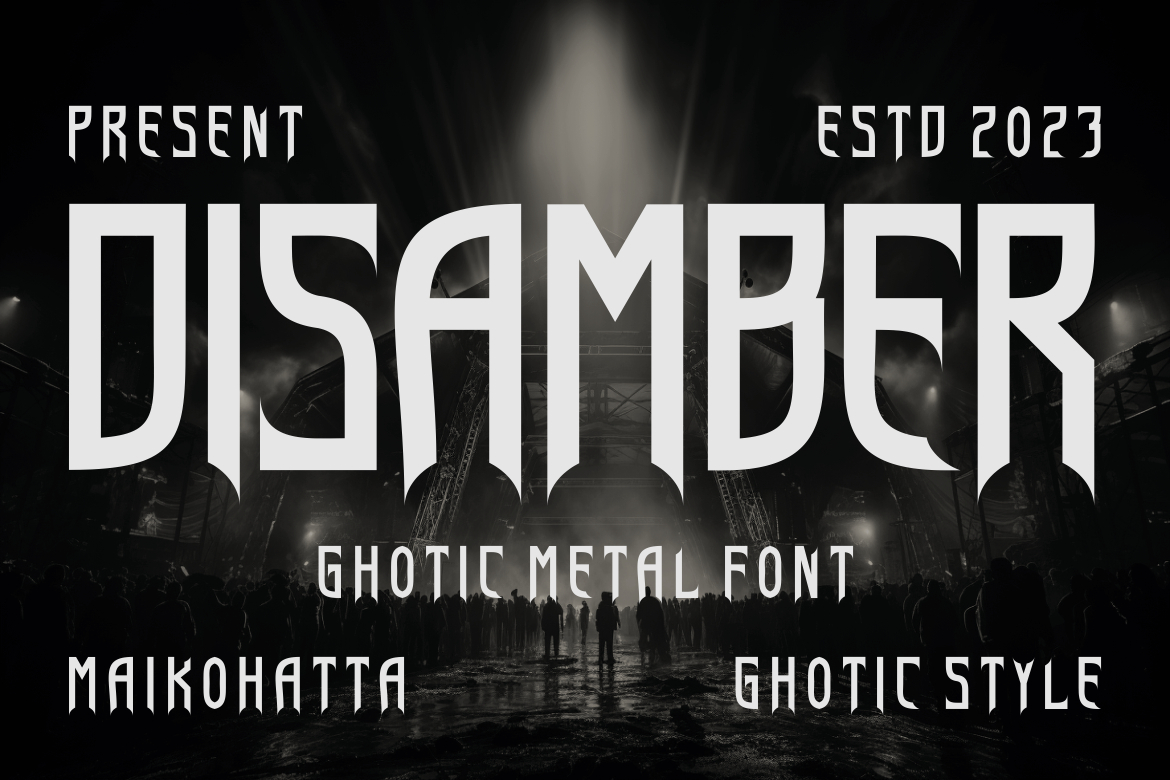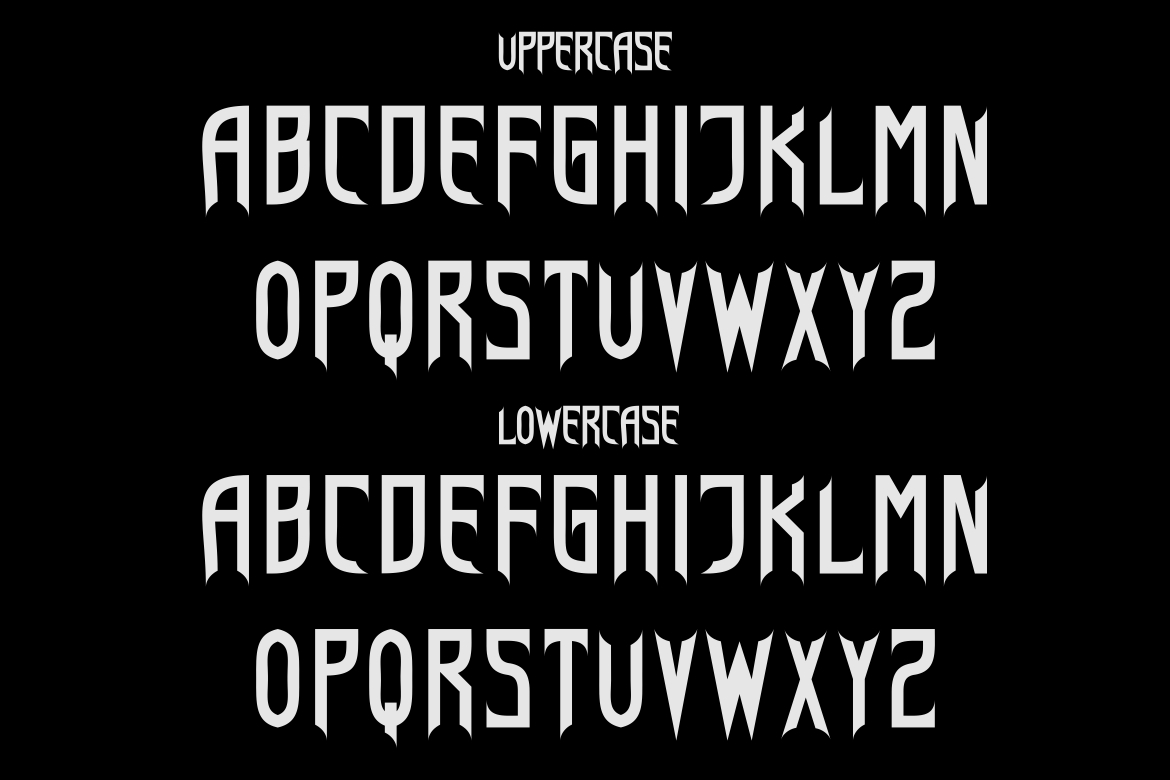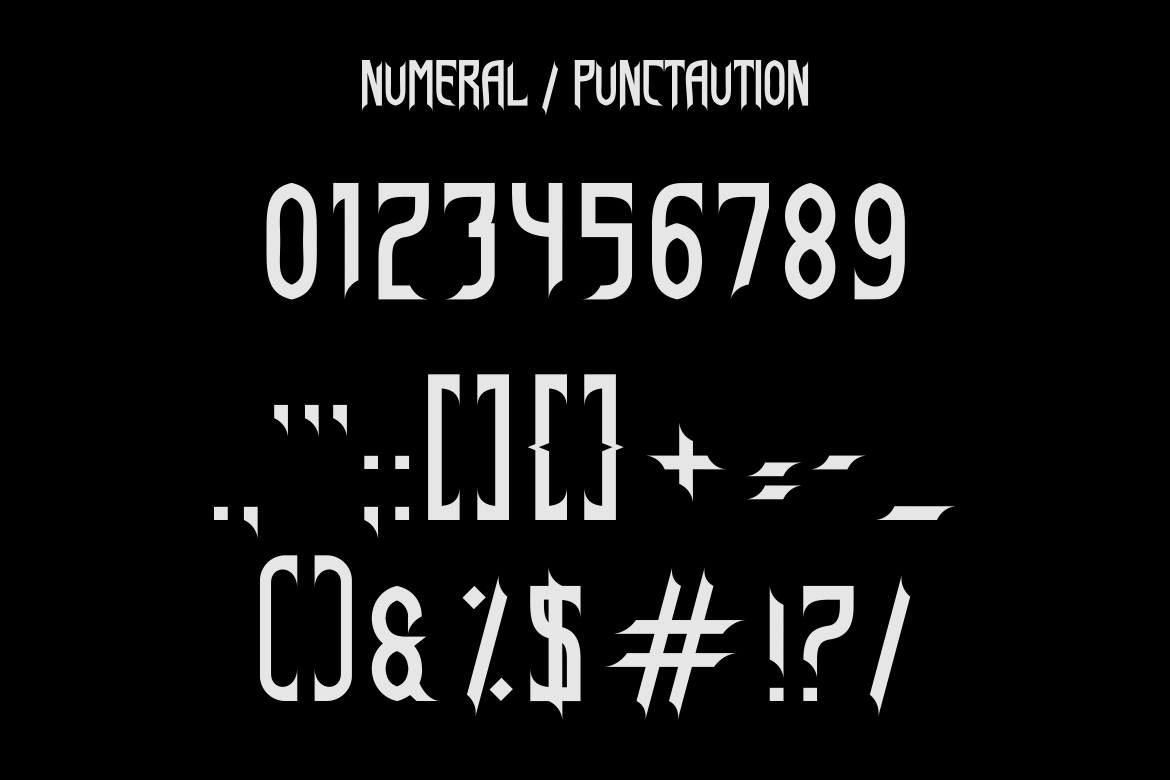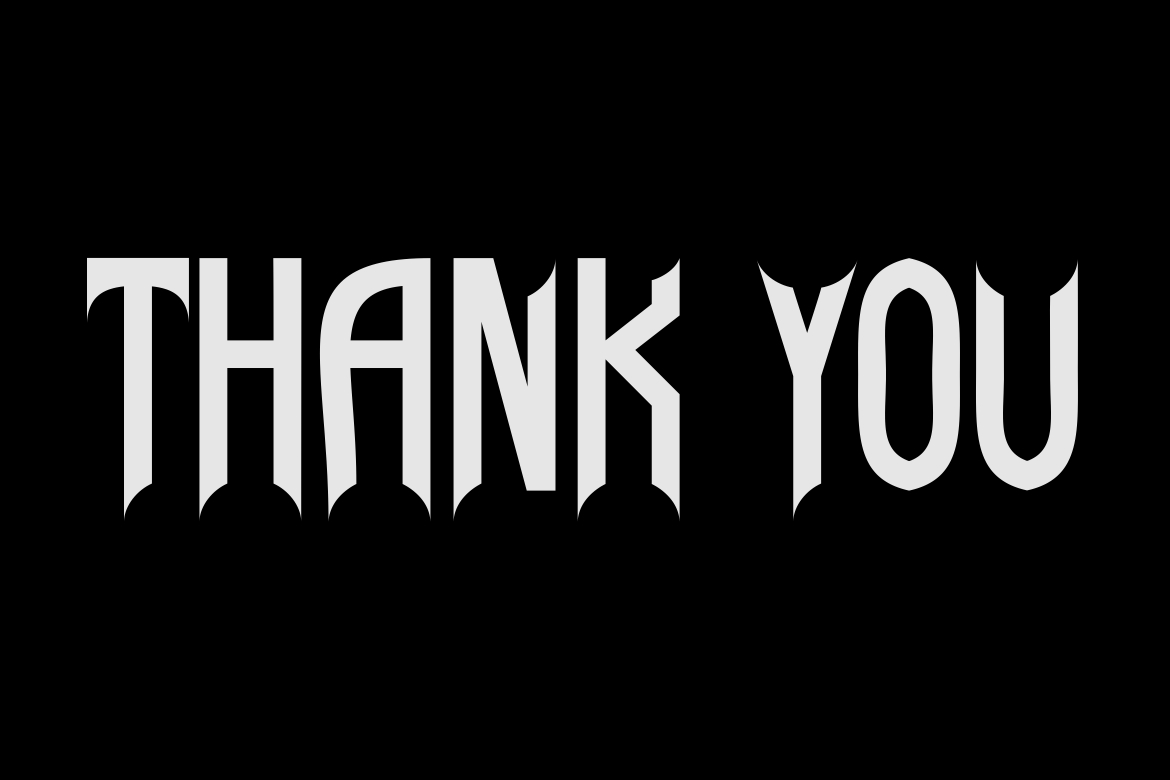
About Disamber Font
**Disamber** Gothic Metal Font
**Disamber** Gothic Metal is a font style that combines decorative Gothic elements with a strong modern touch. The letters are upright, and bold, and feature curved lines and sharp angles, creating a dramatic and powerful appearance. It is suitable for designs that aim to convey a dark, mysterious, and powerful impression.